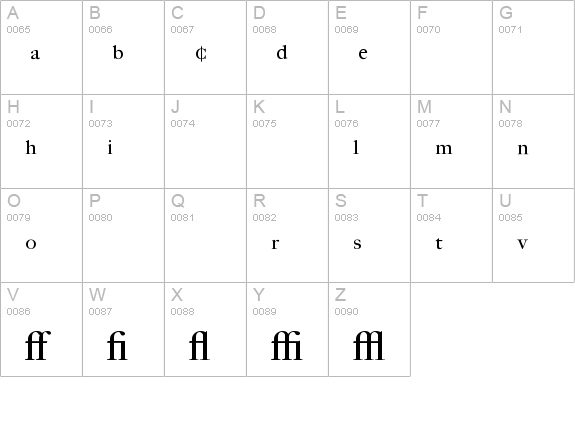
Introducing BigCaslon-Exp font, a timeless and elegant typeface that exudes sophistication and classic charm. With its bold strokes and graceful curves, this versatile font is perfect for adding a touch of elegance to any design project. BigCaslon-Exp is not just visually stunning, but also incredibly versatile, making it suitable for a wide range of applications, from branding and advertising to editorial design and more. And the best part? BigCaslon-Exp font is available for free download at FontsMarket.com! Get your hands on this exquisite typeface today and elevate your design projects with its timeless beauty and elegance. Don't miss out on the opportunity to add this stunning font to your collection for free.